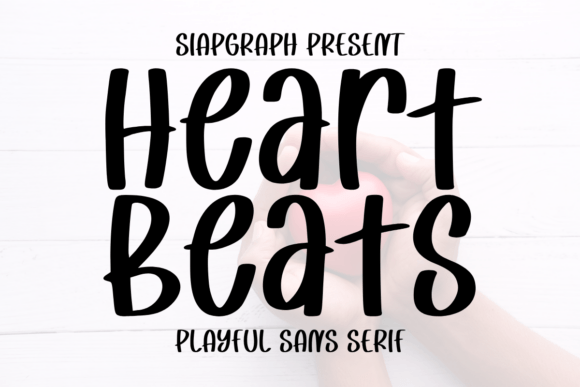
Beating to the Rhythm of Creativity
As a designer, there’s nothing quite like the thrill of bringing a new project to life. The spark of inspiration, the rush of creativity, and the satisfaction of seeing your vision take shape – it’s a feeling that’s hard to match. And for those of us who love Valentine’s Day, the challenge is to capture the essence of love and affection in a way that’s both playful and sincere.
Enter Heart Beats Font, a delightful sans serif font that’s perfect for spreading the love. With its cute and fun style, natural strokes, and whimsical touches, this font is a treasure trove of creative possibilities. Whether you’re designing Valentine’s cards, gifts, or apparel, Heart Beats Font is the perfect companion to help you express your feelings in a way that’s both heartfelt and visually appealing.
Key Features of Heart Beats Font
- Font Family: Heart Beats is a unique, hand-drawn font designed to evoke a sense of emotion and expression. It’s perfect for creating eye-catching headlines and titles.
- Character Set: The font includes a wide range of characters, including uppercase and lowercase letters, numbers, punctuation marks, and special characters.
- Unique Characteristics: Heart Beats features a distinctive, hand-drawn style with irregular lines and subtle imperfections, giving it a unique and emotive feel.
Designer Review: Heart Beats Font
Overall, I think the Heart Beats Font is a decent choice for designers looking for a playful, handwritten font. Here are some of its strengths and weaknesses:
- ✨ The font’s organic feel and swashes add a touch of personality to any design.
- ✨ The font’s readability is surprisingly good, especially for a handwritten font.
- ✨ The font includes a wide range of glyphs and characters, making it suitable for various design projects.
- ⚠️ The font’s irregularities can make it difficult to work with, especially for designers who prefer a more precise and controlled look.
- ⚠️ The font’s weight and style can be inconsistent, making it challenging to achieve a cohesive design.
- ⚠️ The font may not be the best choice for designs that require a high level of professionalism or sophistication.
The Heart Beats Font is a fun and creative option for designers who want to add a personal touch to their work. However, it may not be the best choice for more formal or professional designs. With some careful planning and design considerations, this font can be a great addition to any project.
The Heart Beats font is ideal for creating playful, whimsical designs and graphics. Some common use cases include:
- Children’s party graphics and decorations
- Gift card and coupon designs
Remember to pair the Heart Beats font with other playful fonts and graphics to create a cohesive and visually appealing design.